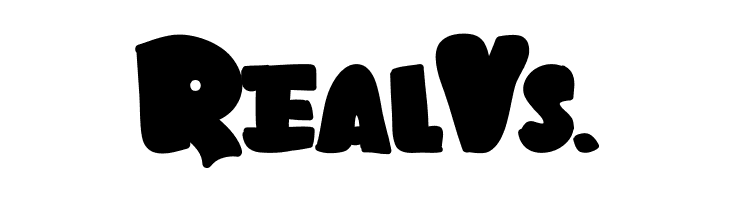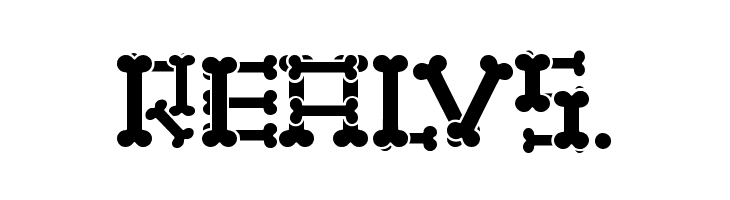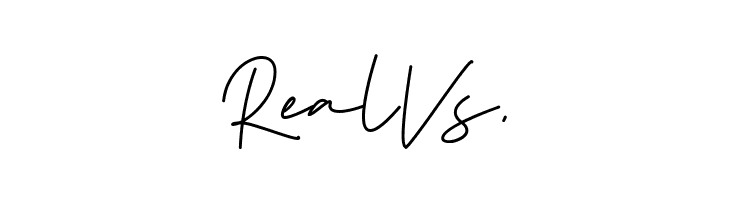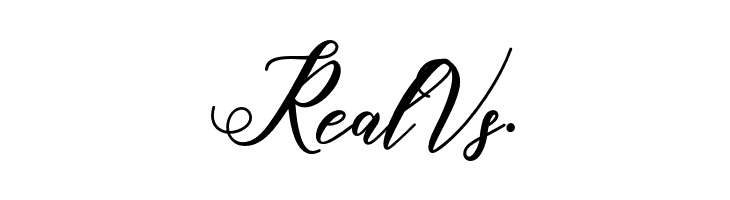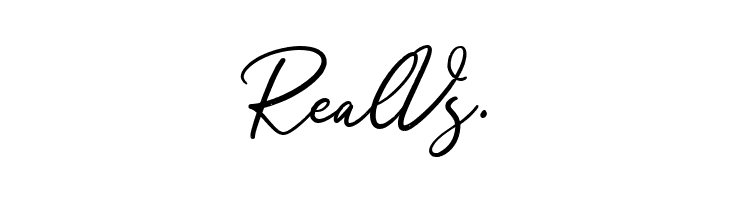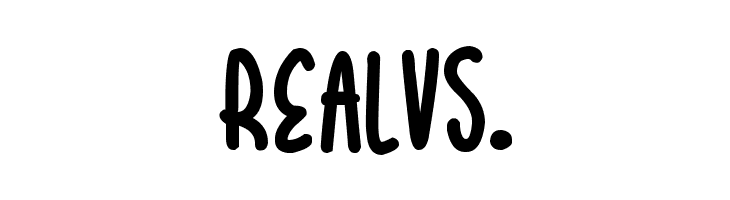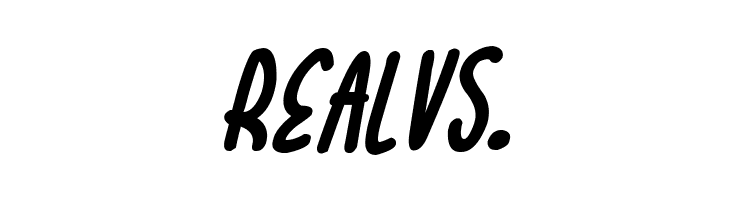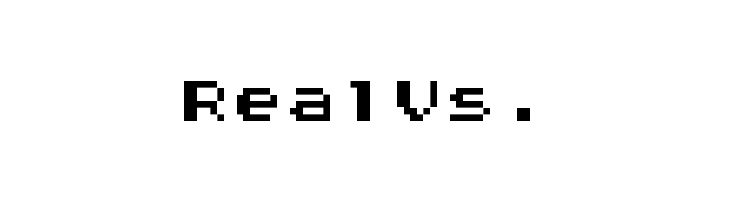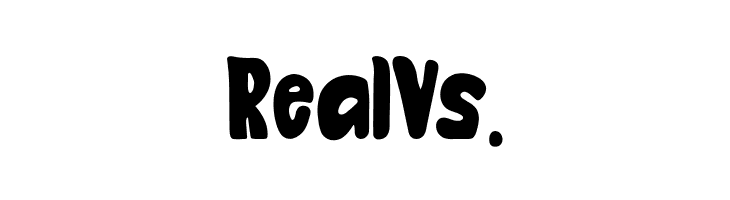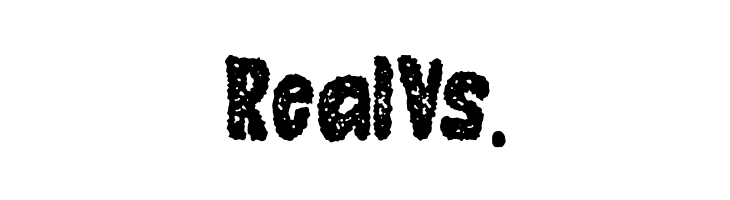
An elegant, flowing script font with graceful, cursive letterforms.
A modern, elegant script font with flowing, interconnected characters.
An elegant script font with flowing, interconnected letterforms and intricate swashes.
An elegant cursive script font with flowing, intricate strokes.
An elegant, cursive script font with flowing, connected letters and high contrast strokes.
A graceful script font with flowing, connected characters and ornate flourishes.
A bold, modern font with thick, uniform strokes and a strong presence.
A bold, italic font with a dynamic and impactful style.
A sleek, modern italic font with smooth curves and elongated letterforms.
A modern sans-serif font with a clean, geometric design and uniform stroke width.
A bold, jagged font with a horror-themed, dripping effect.
A tall, narrow handwritten font with a playful and elegant style.
A modern, geometric sans-serif font with uniform stroke widths.
A playful and decorative font with high contrast and whimsical design.
A playful, hand-drawn font with dynamic strokes and whimsical charm.
A playful, hand-drawn font with dynamic strokes and a whimsical style.
A playful and whimsical handwritten font with dynamic strokes.
A fluid and elegant handwritten script with seamless letter connections.
A modern, elegant font with high contrast and clean lines.
A modern, elegant font with high contrast and sharp lines.
A playful handwritten font with smooth, connected letterforms.
A bold, handwritten font with an artistic and playful style.
A bold, expressive handwritten font with playful curves and thick strokes.
An artistic and dynamic font with flowing, interconnected strokes.
An elegant script font with flowing, decorative swashes and loops.
An elegant script font with flowing, decorative swashes and intricate loops.
A flowing, elegant script font with connected, cursive characters.
A bold, decorative font with a skeletal, Halloween-inspired design.
A bold, hand-drawn font with an expressive, graffiti-like style.
A whimsical and decorative font with ornate flourishes.
A whimsical, spooky font with jagged edges and playful curls, ideal for Halloween themes.
A playful, handwritten-style font with bold, rounded characters.
A bold, playful handwritten font with smooth curves and a casual vibe.